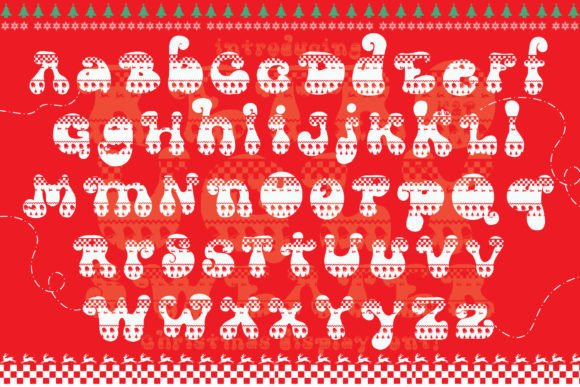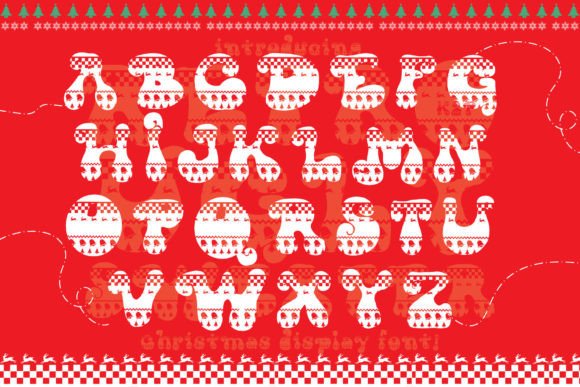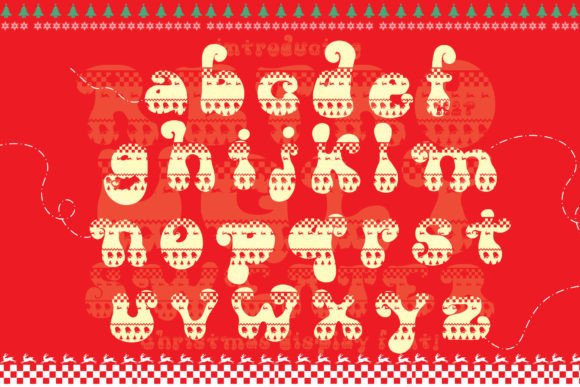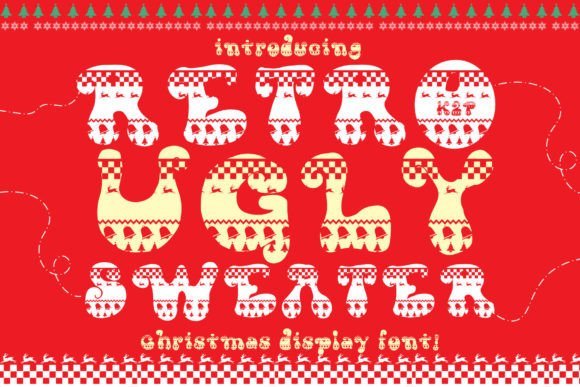
Introduction to Retro Ugly Sweater Font
Retro Ugly Sweater is a fun, festive, and incredibly unique decorative display font.
It can be used for various design ideas, particularly those related to the Christmas Holiday .
Key Features of Retro Ugly Sweater Font